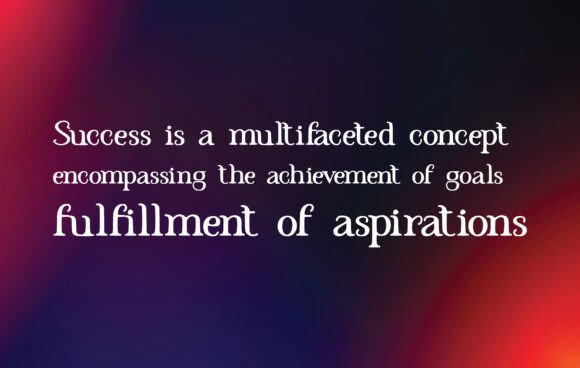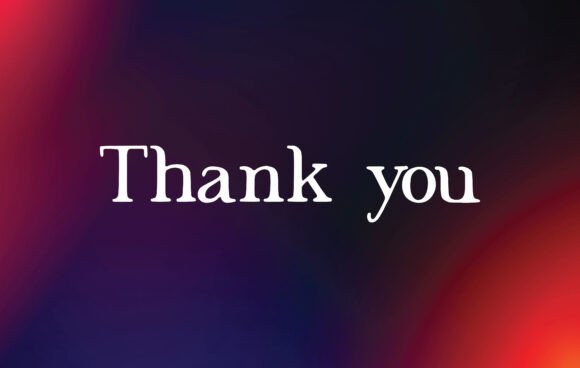
The Fennel Font: A Beautiful Handwritten Font to Elevate Your Designs
I’ll never forget the struggle I faced while working on a branding project for a new coffee shop. My client wanted a logo that was both elegant and playful, but I was stuck with a bland, generic font that just wouldn’t cut it. That’s when I discovered the Fennel font, a lovely and beautiful handwritten font that completely transformed my design. In this article, I’ll share my experience with Fennel, its features, and how to make the most of it in your designs.
An Honest Review of Fennel Font
What I Love About Fennel Font ✨
- 💫 Unique and elegant handwritten style that’s perfect for logos, branding, and quotes
- 🎨 Versatile and adaptable to various design styles and industries
- 🔍 Extensive character set, including glyphs and stylistic alternates
- ⚠️ Limited availability of Fennel font in certain design software or platforms
- 🤔 May require some manual kerning for optimal results
The Designer Inspiration Behind Fennel Font
Fennel font was designed with the intention of creating a beautiful and elegant handwritten font that could elevate designs to the next level. The designer, inspired by the simplicity and sophistication of handwritten scripts, crafted Fennel font to be versatile, legible, and adaptable to various design styles.
| Font Name | Fennel Font |
| Author | moonlight craft |
Q: What is Fennel font best suited for?
A: Fennel font is perfect for creating eye-catching logos, branding, and quotes. Its elegant and refined style makes it suitable for various design projects, from formal to casual.
Q: Is Fennel font available in multiple languages?
A: Fennel font may have limited language support. Please check the font’s character set and language support before using it for multilingual designs.